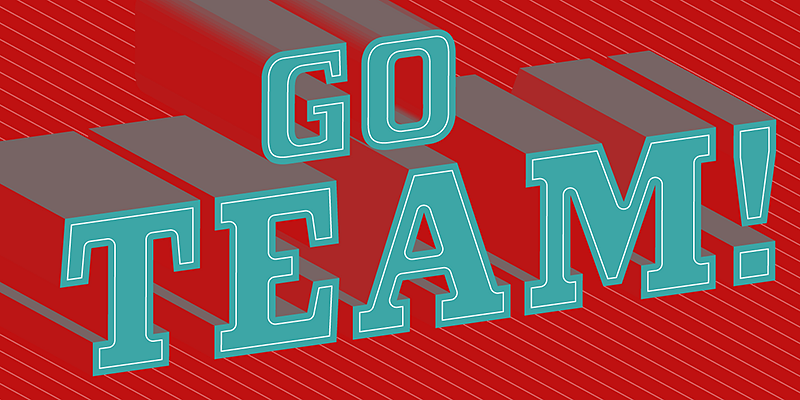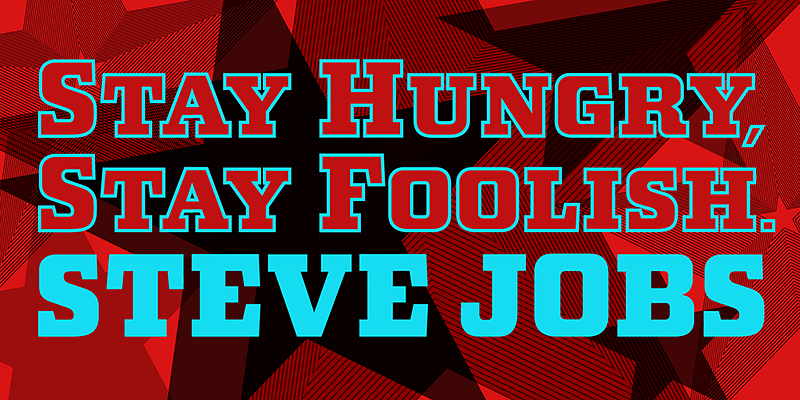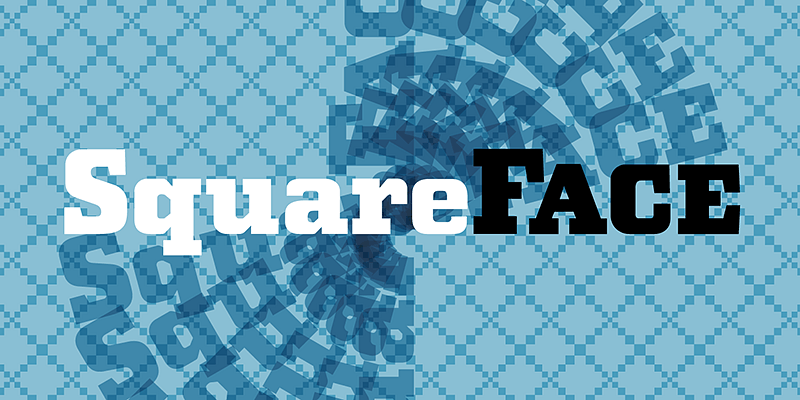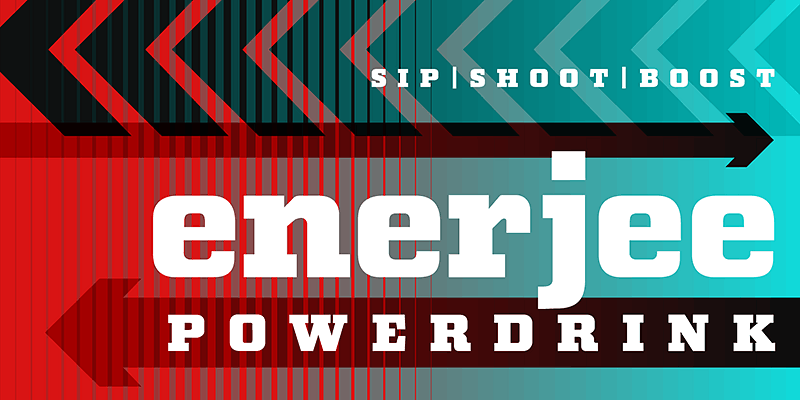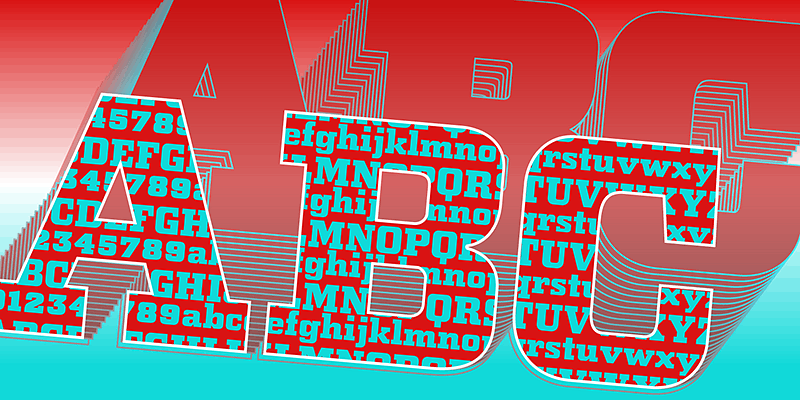
LTC Squareface is a striking display face designed by Sol Hess in 1940 as a variation of Stymie extra bold, but with squared corners where round shapes would normally be.
Lanston Type Co. (LTC) has roots back to the Lanston Monotype Company of 1887, founded by Tolbert Lanston, inventor of the Monotype casting machine. After parting ways with its English counterpart, LTC struggled and was sold several times to American Type Founders, Hartzel Machine Works, Mackenzie & Harris, and Gerald Giampa. P22 Type Foundry acquired it in 2004 and is now home to classic designs of Frederic W. Goudy and Sol Hess and newer contemporary masters Giampa, Jim Rimmer, and Dave Farey.